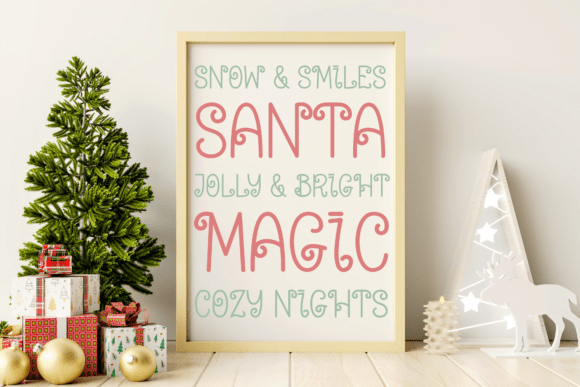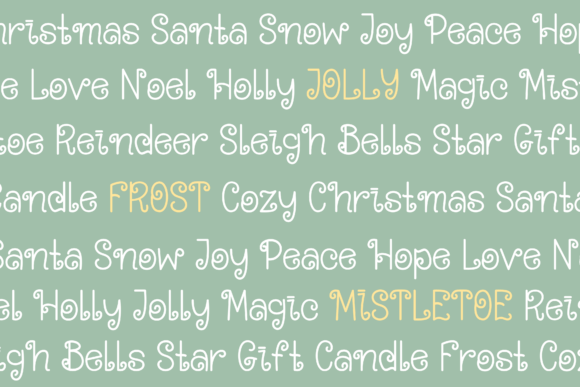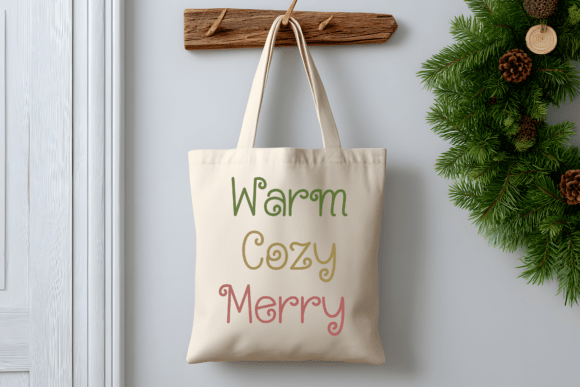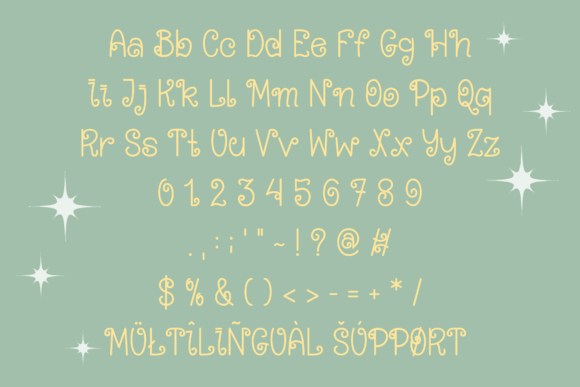
Introducing December Moonlight Font: Whimsical Handwritten Christmas Magic
As the winter season approaches, designers and crafters are on the lookout for the perfect font to capture the essence of Christmas magic. Look no further than December Moonlight Font, a whimsical handwritten Christmas font that embodies the wonder and enchantment of winter nights and twinkling stars.
A Festive and Cozy Addition to Your Designs
December Moonlight Font is a charming and playful font that brings a sense of warmth and coziness to every project. Its soft curves and playful curls make every letter feel festive and full of holiday wonder. Whether you’re designing holiday cards, gift tags, invitations, stickers, quotes, or winter-themed designs, this font is sure to add a touch of Christmas magic to your creations.
December Moonlight Font is specifically designed with the holiday season in mind. Its whimsical and handwritten style makes it perfect for a variety of projects, including:
- Holiday cards: Add a personal touch to your Christmas cards with December Moonlight Font.
- Gift tags: Make your gifts stand out with beautifully designed tags featuring this charming font.
- Invitations: Create festive and fun invitations for your holiday parties and events.
- Stickers: Design adorable stickers to add a touch of Christmas magic to your gifts, cards, and decorations.
- Quotes: Add a touch of elegance and sophistication to your holiday quotes and sayings.
- Winter-themed designs: Create stunning winter-themed designs, such as snowflakes, pinecones, and winter landscapes, with December Moonlight Font.
Why Choose December Moonlight Font?
So why choose December Moonlight Font for your holiday projects? Here are just a few reasons:
- Unique and Whimsical Style: December Moonlight Font has a one-of-a-kind, whimsical style that’s sure to make your projects stand out.
- Easy to Read and Use: Despite its playful and curly design, December Moonlight Font is easy to read and use, making it perfect for a variety of projects.
- Perfect for Designers and Crafters: Whether you’re a professional designer or a crafter, December Moonlight Font is the perfect addition to your design toolkit.
Tips for Using December Moonlight Font
Here are a few tips for getting the most out of December Moonlight Font:
- Experiment with Colors and Textures: Try pairing December Moonlight Font with different colors and textures to add depth and interest to your designs.
- Use it with Other Fonts: Combine December Moonlight Font with other fonts to create a unique and eye-catching design.
- Don’t Be Afraid to Get Creative: December Moonlight Font is a versatile font that can be used in a variety of creative ways, so don’t be afraid to experiment and try new things.
December Moonlight Font is a charming and whimsical handwritten Christmas font that’s perfect for designers and crafters looking to add a touch of Christmas magic to their projects. With its playful curls and soft curves, this font brings warmth and sparkle to every design. Whether you’re creating holiday cards, gift tags, invitations, stickers, quotes, or winter-themed designs, December Moonlight Font is the perfect choice. So why wait? Download December Moonlight Font today and start adding a dreamy touch of Christmas magic to your creations!